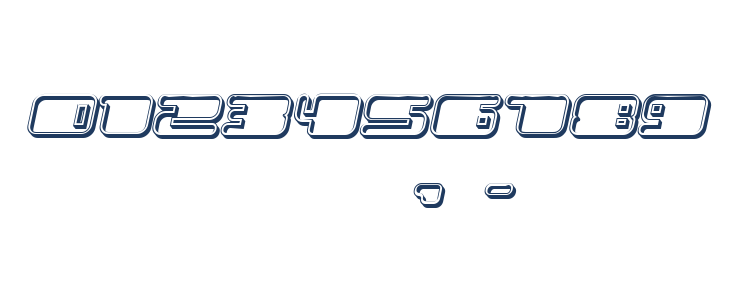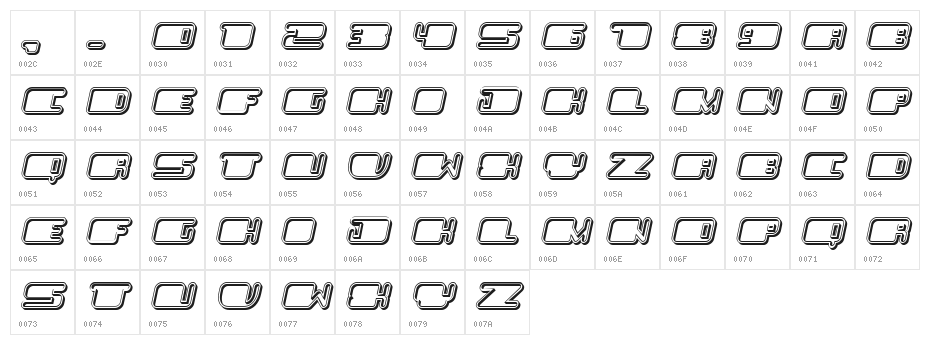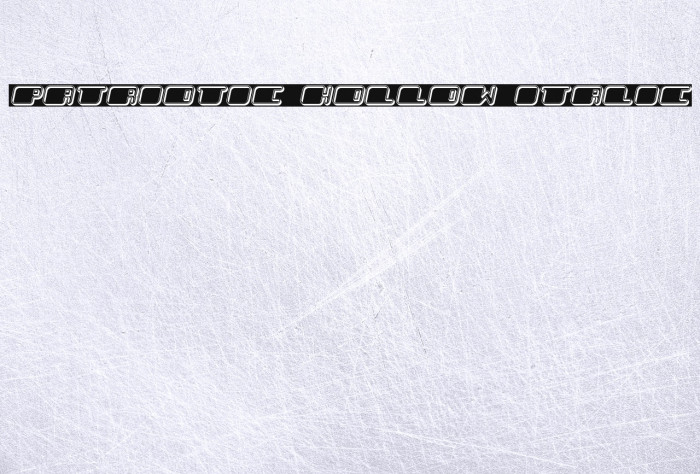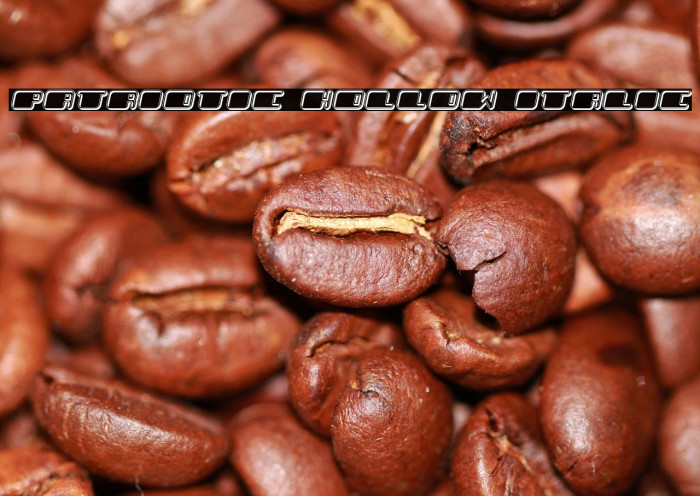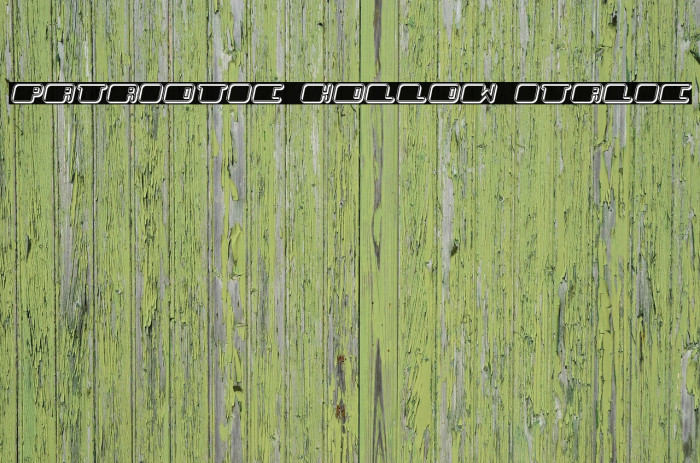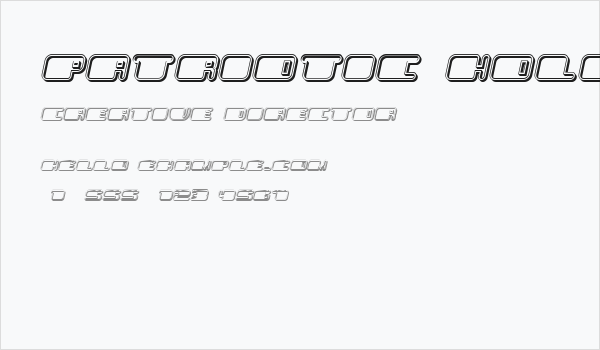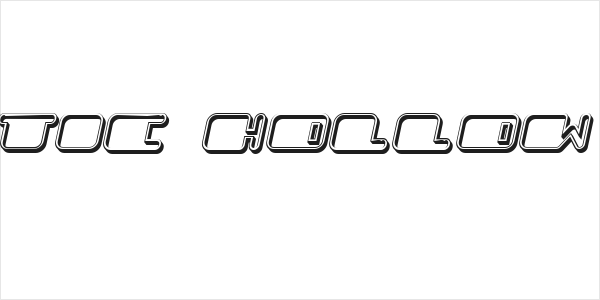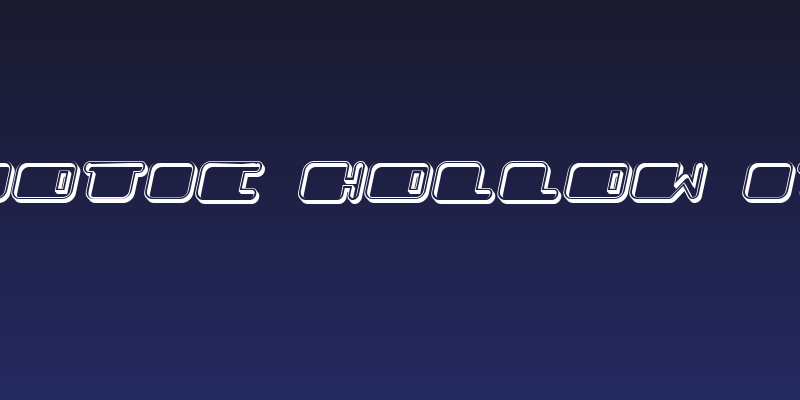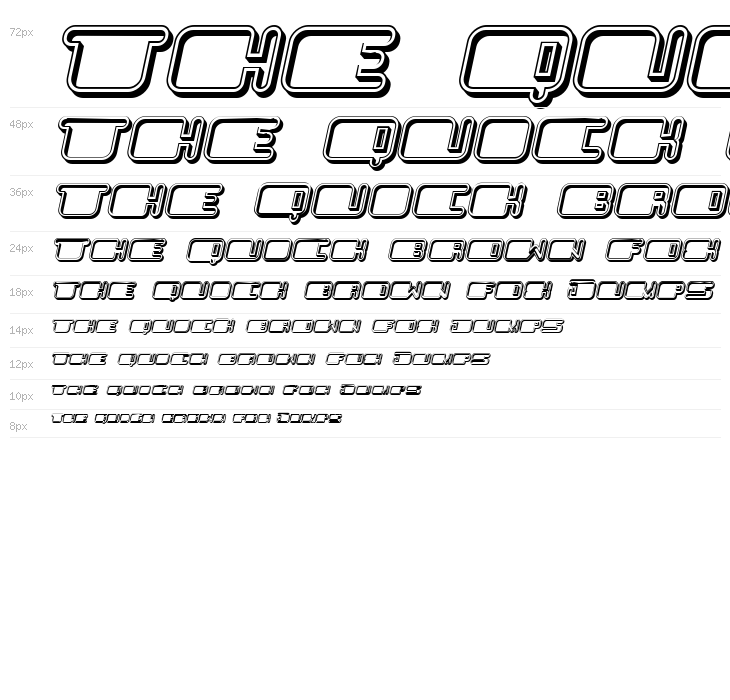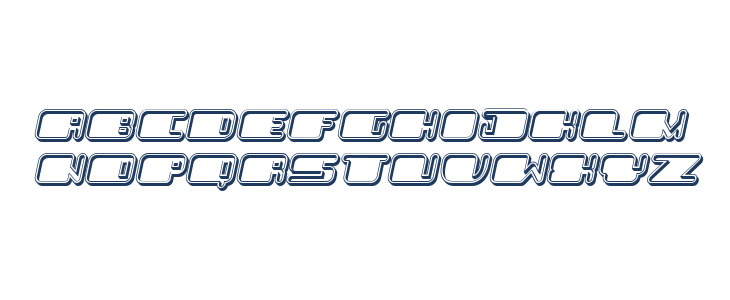
Patriotic Hollow Italic Font
Patriotic Hollow Italic Description
This font features a bold, hollow design with a distinct italic slant, giving it a dynamic and modern appearance. The characters are outlined, creating a striking visual effect that stands out. The uppercase and lowercase letters maintain a consistent style, with rounded edges and a uniform thickness throughout. Numbers and special characters follow the same design principles, ensuring a cohesive look across all elements. The font's hollow nature adds a sense of depth and dimension, making it ideal for eye-catching displays.
| Proposed Projects | Ideal for posters, headlines, branding, and any project requiring a bold and modern aesthetic. |